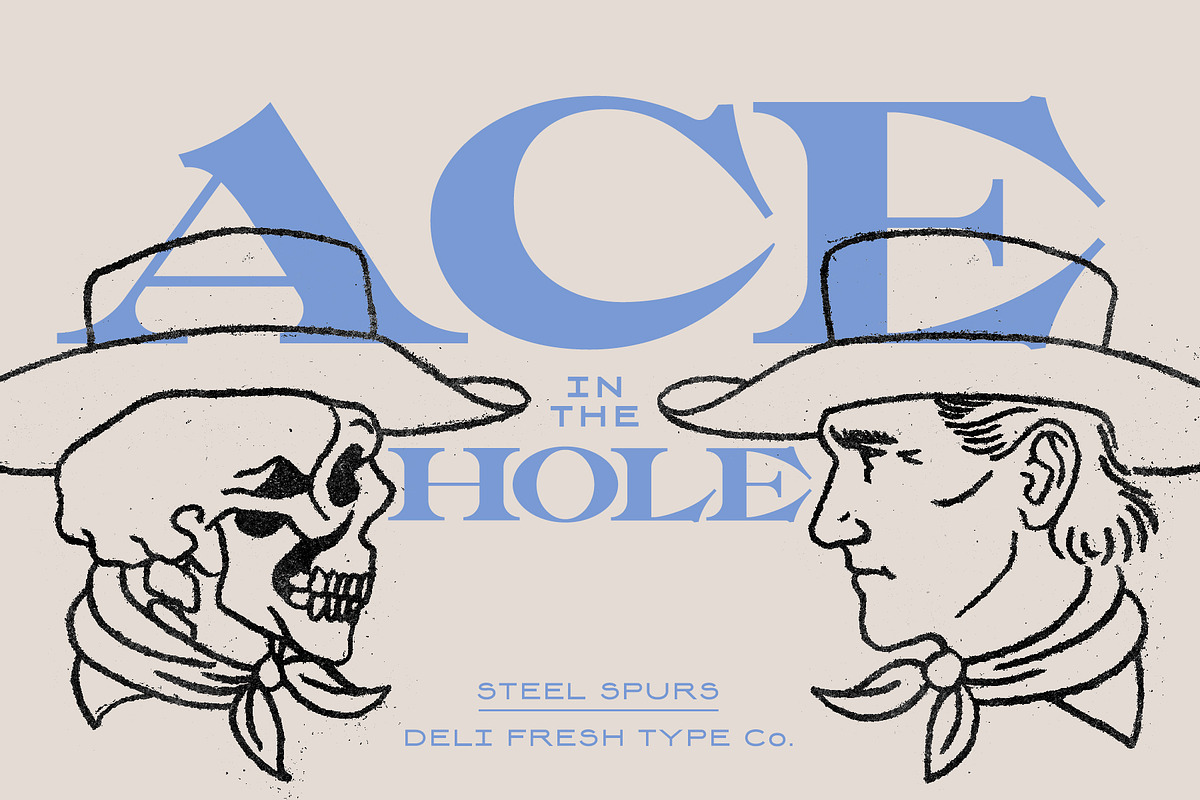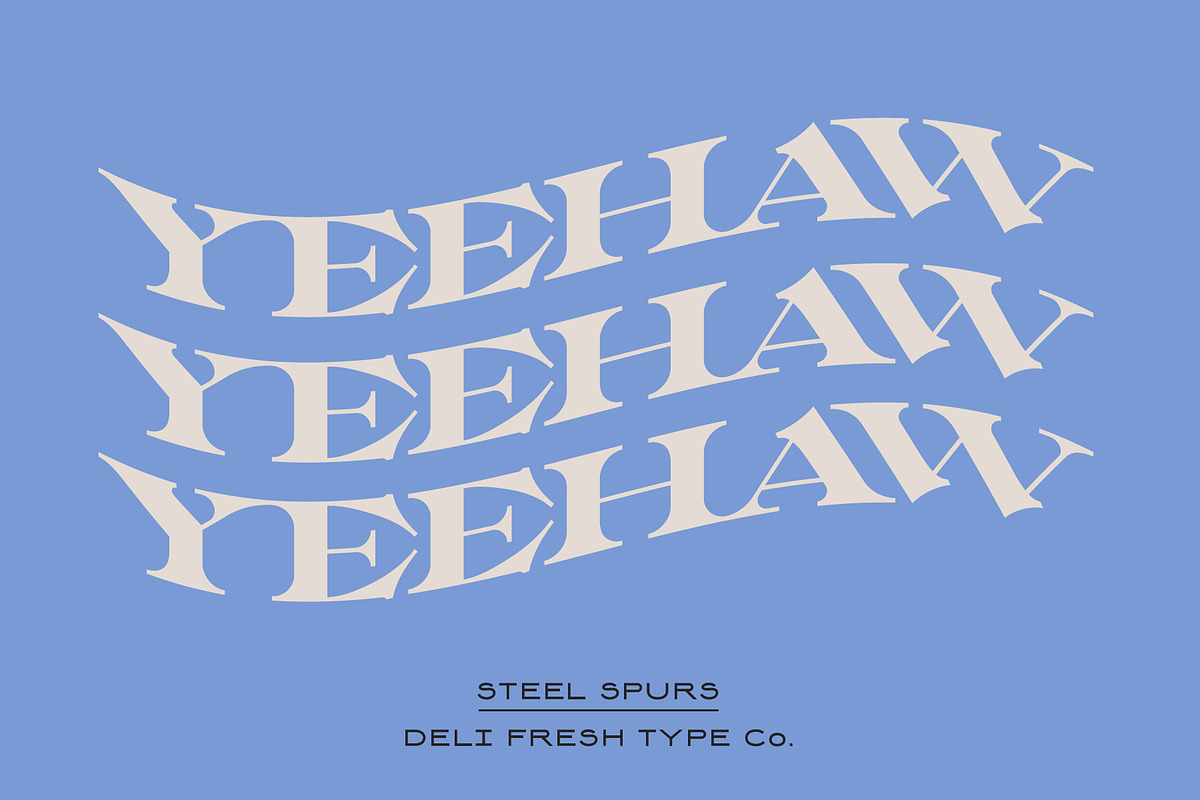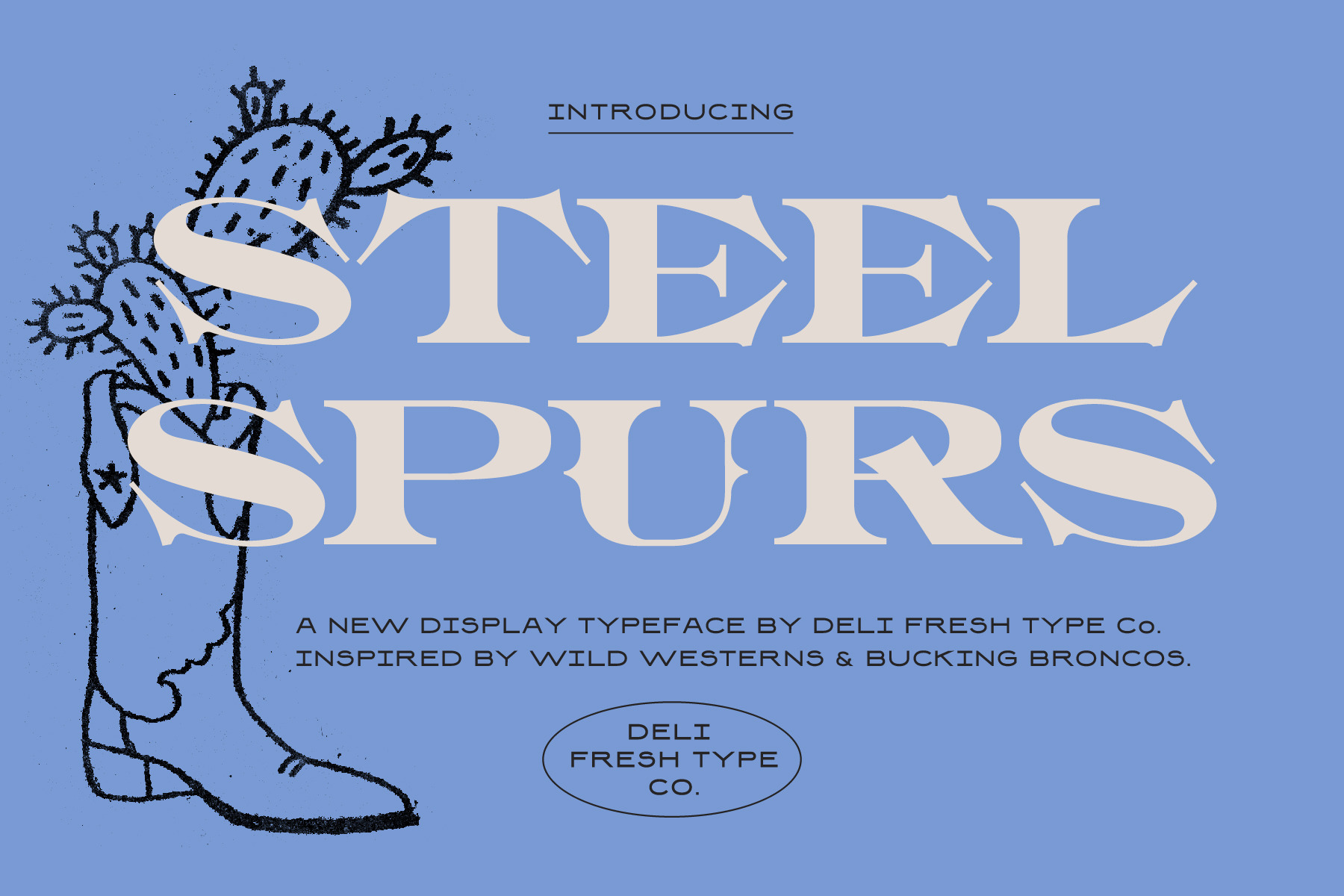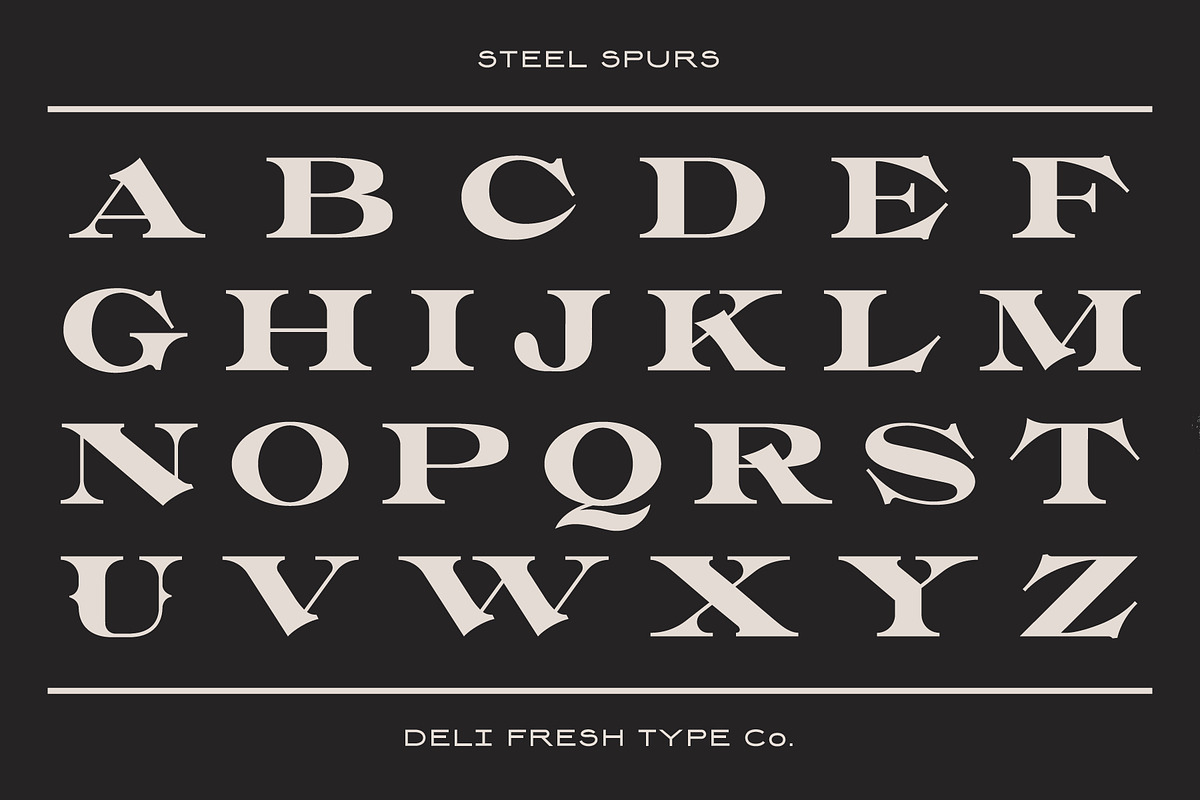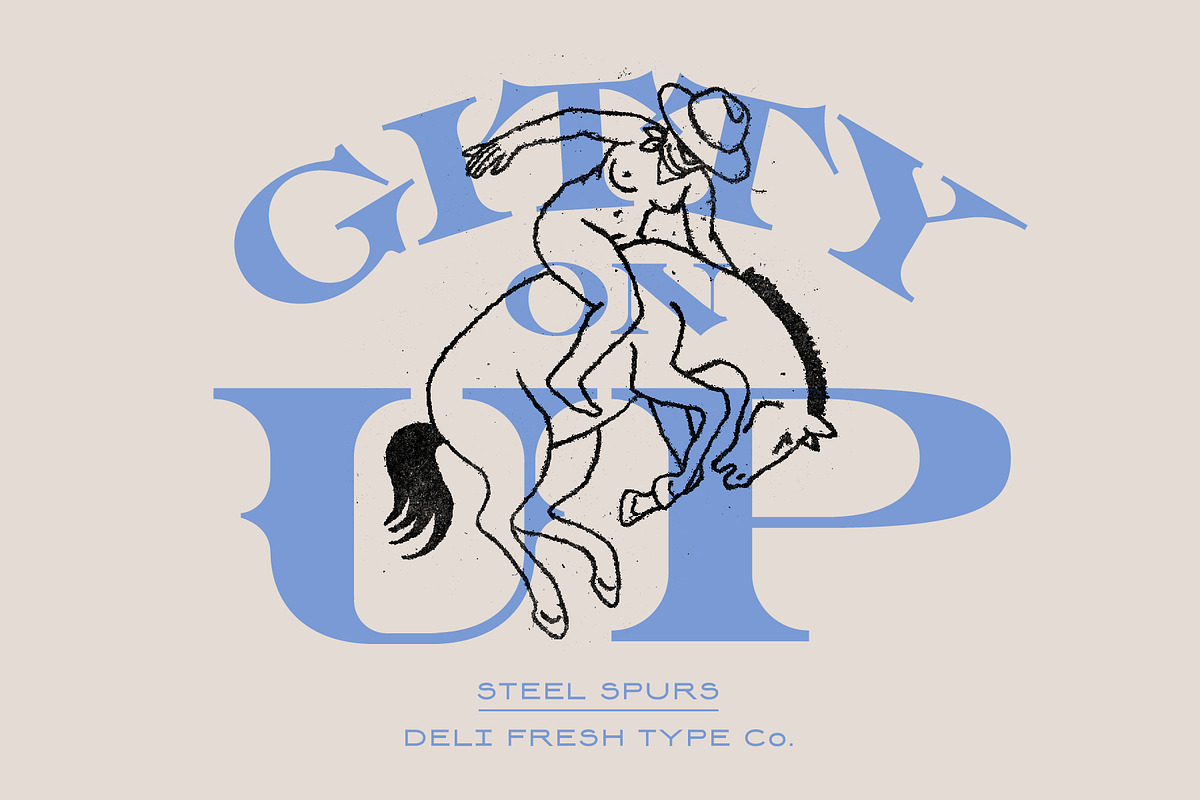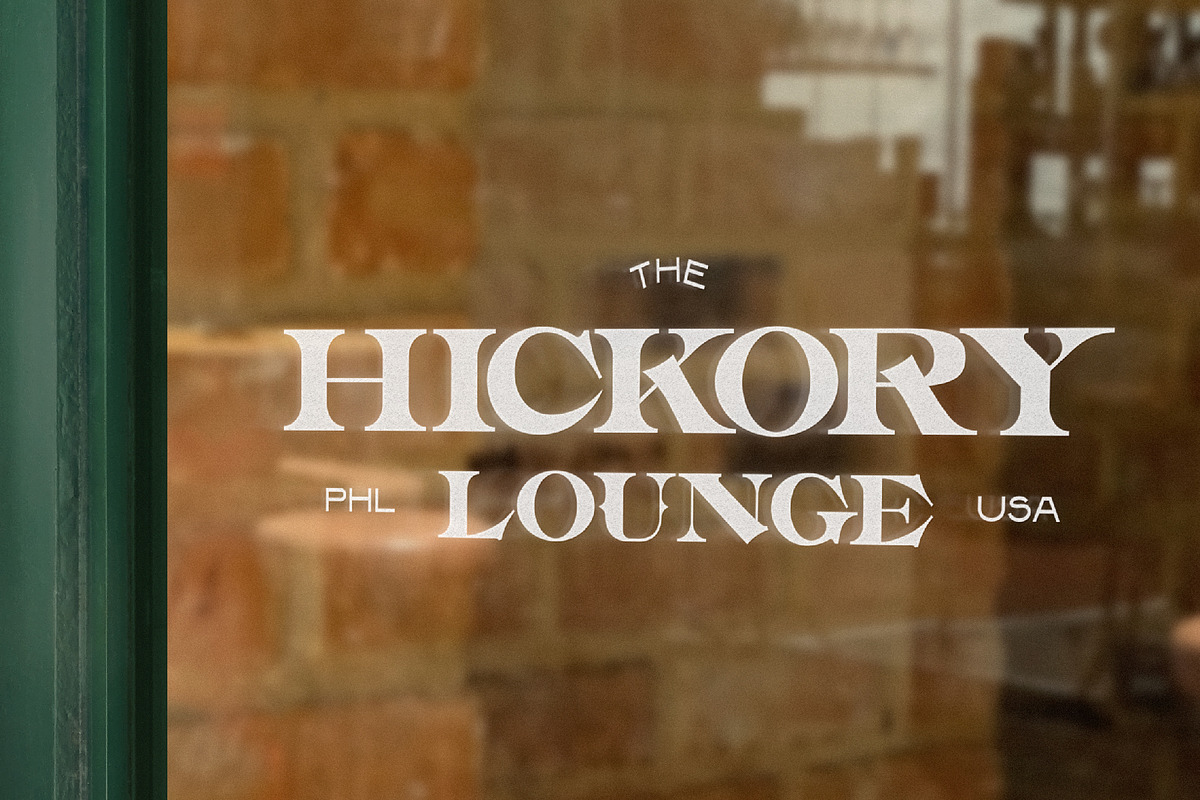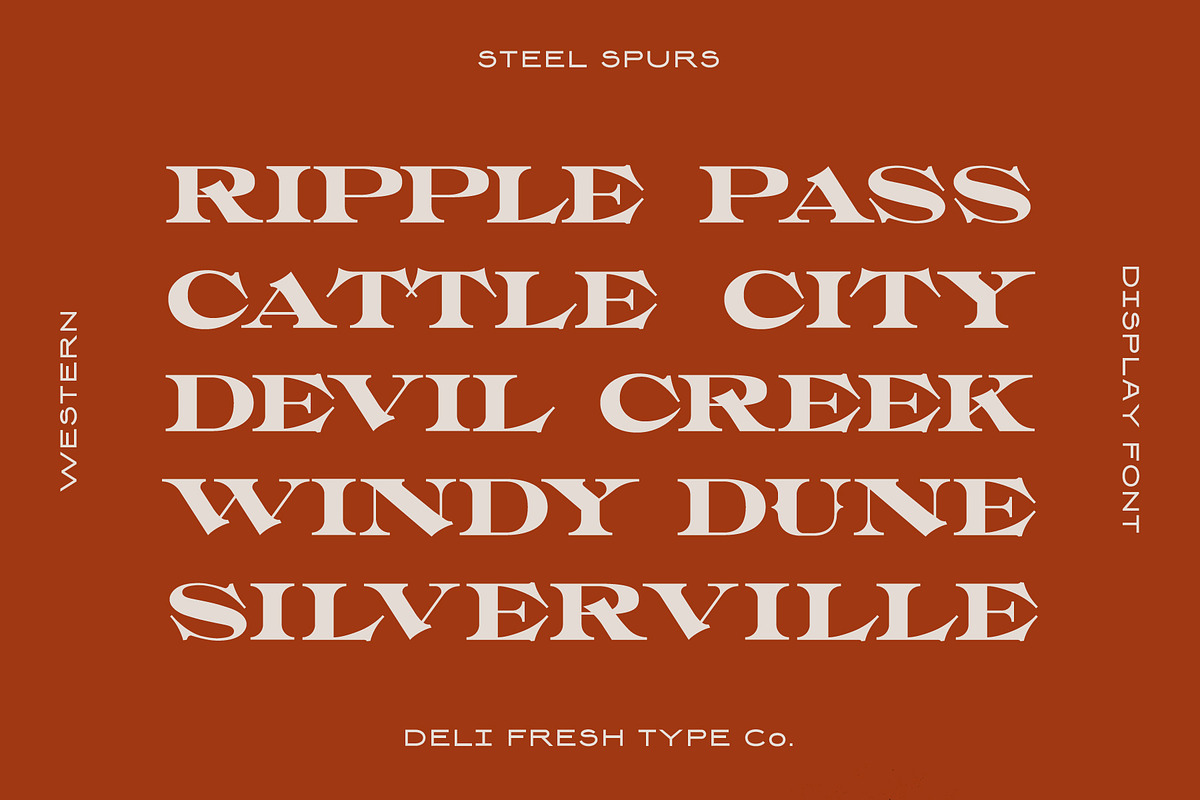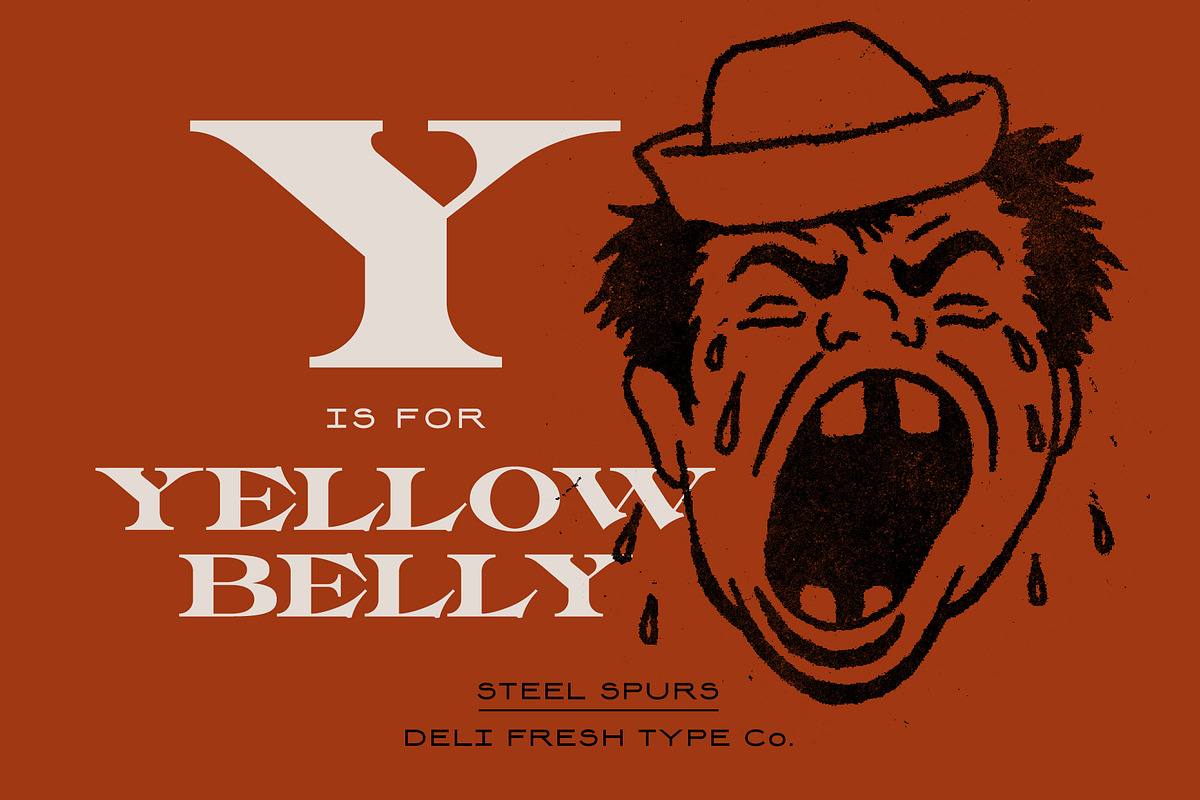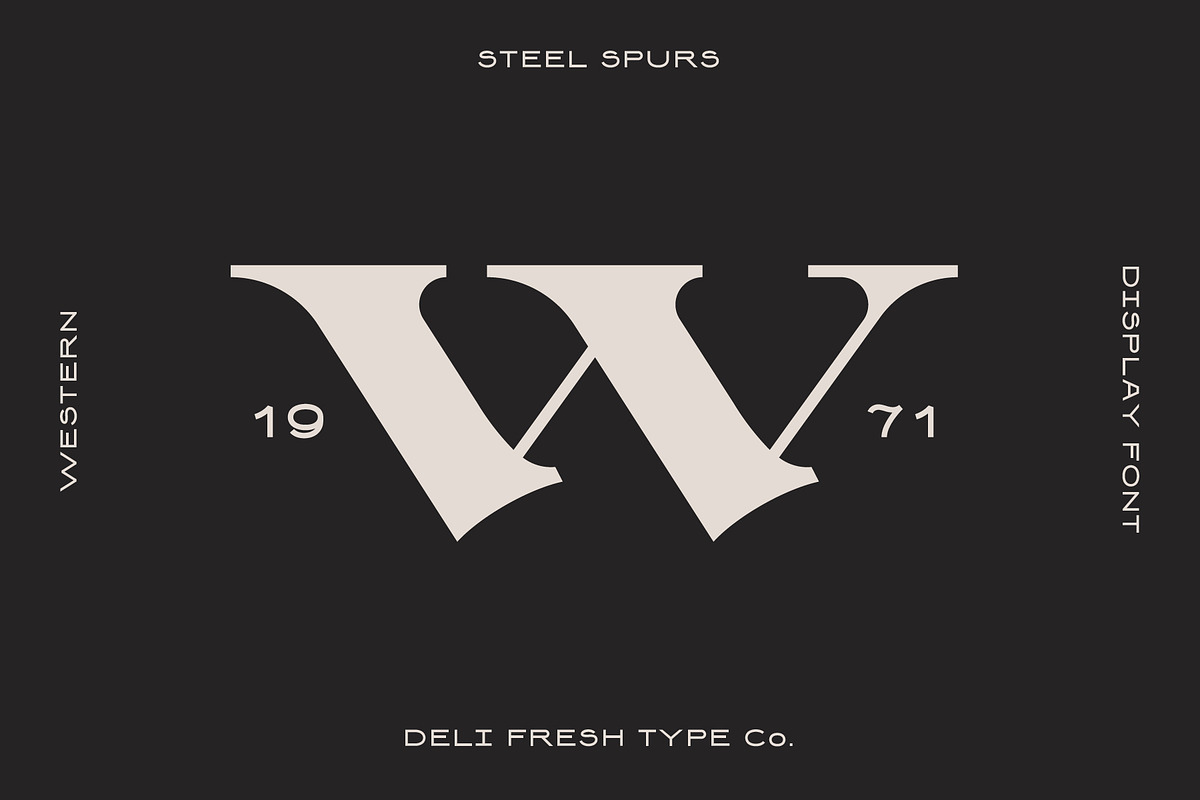
Steel Spurs: A Western Display Font
A new display typeface inspired by Wild Westerns and bucking broncos.
Comes with upper-case letterforms ONLY. No numbers, punctuation or special characters.